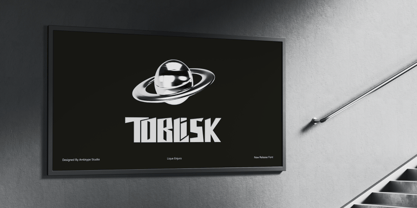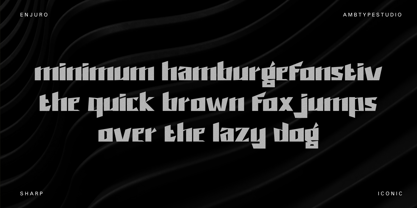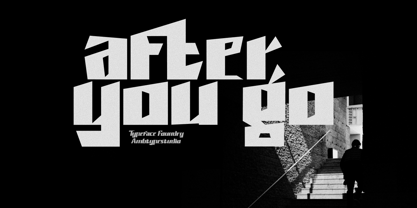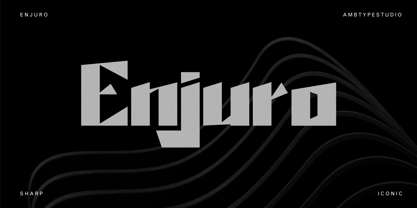
Lique Enjuro
by Ambtype Studio
The Lique Enjuro Font Family was designed by William Rizky Bahari and published by Ambtype Studio. Lique Enjuro contains 2 styles and family package options. More about this family
Lique Enjuro is a sharp and iconic sans serif typeface that redefines geometric elegance. Designed with a striking visual concept, all letterforms feature a flat baseline paired with uniquely slanted tops, creating a dynamic yet grounded rhythm. Its angular cuts and clean construction exude confidence and modernity, making it stand out in any layout.
Perfect for bold branding, editorial headlines, posters, or futuristic design concepts, Lique Enjuro blends structure and creativity. Whether used in uppercase logos or minimalistic compositions, this font captures attention with its unmistakable silhouette and razor-sharp presence.
Designers: William Rizky Bahari
Foundry: Ambtype Studio